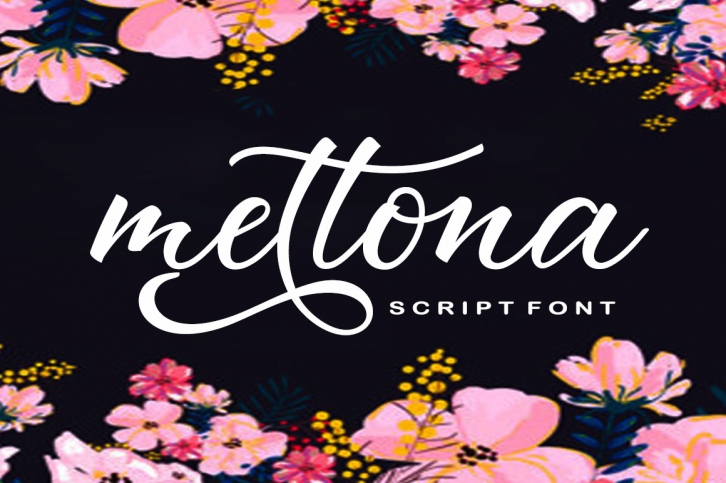
mettona is a gorgeous font that was realeased on September 10, 2019. The font can be used in many style contexts and design environments. Perfect for invitations, magazines, websites, logos, and more! It was designed by donya design and the file size is 12.97 MB. Thanks for checking out this font!